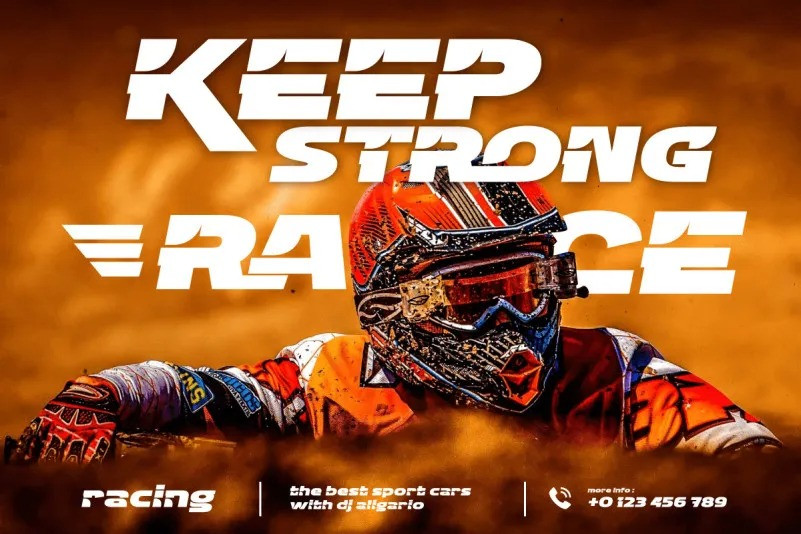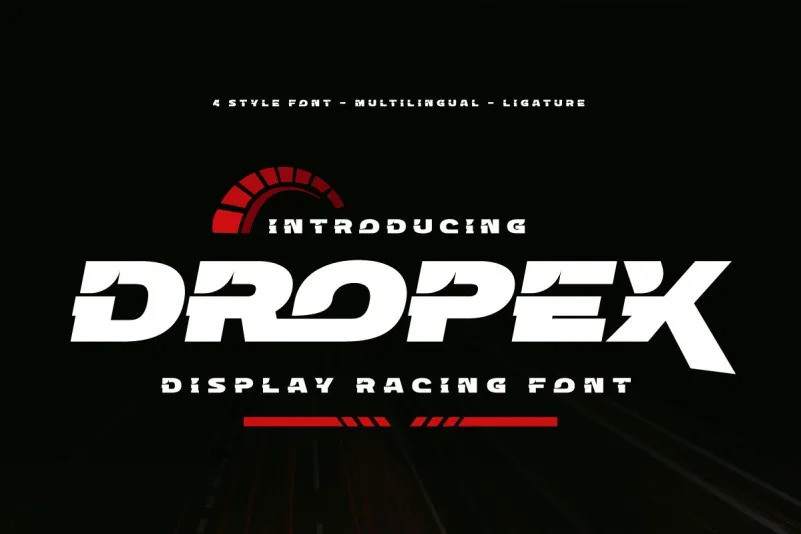
Dropex Font
Looking for a unique, stylish, and fun font for your next project? Dropex Display Font is a modern and cool looking sans serif display font. it describes taste of simplicity and it can easily be matched to an incredibly large set of projects.